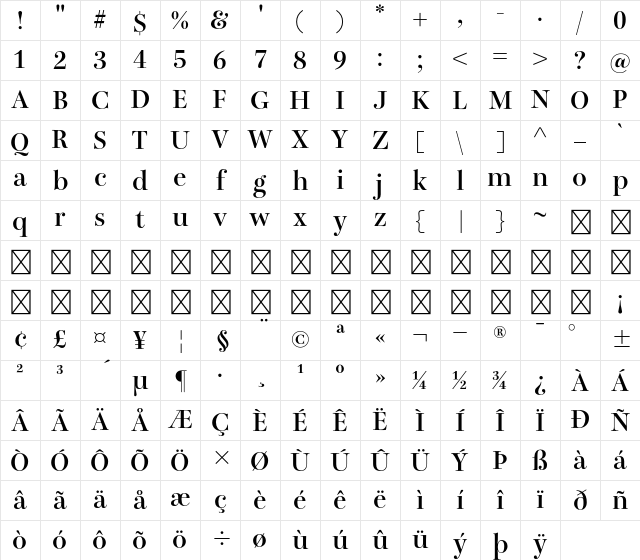
Complete A P-OTF Bunkyu MidasiM StdN EB glyph index. Displaying only characters natively supported by A P-OTF Bunkyu MidasiM StdN EB font.
A P-OTF Bunkyu MidasiM StdN is a composed and adaptable typeface that performs quietly and consistently across a wide range of design contexts.